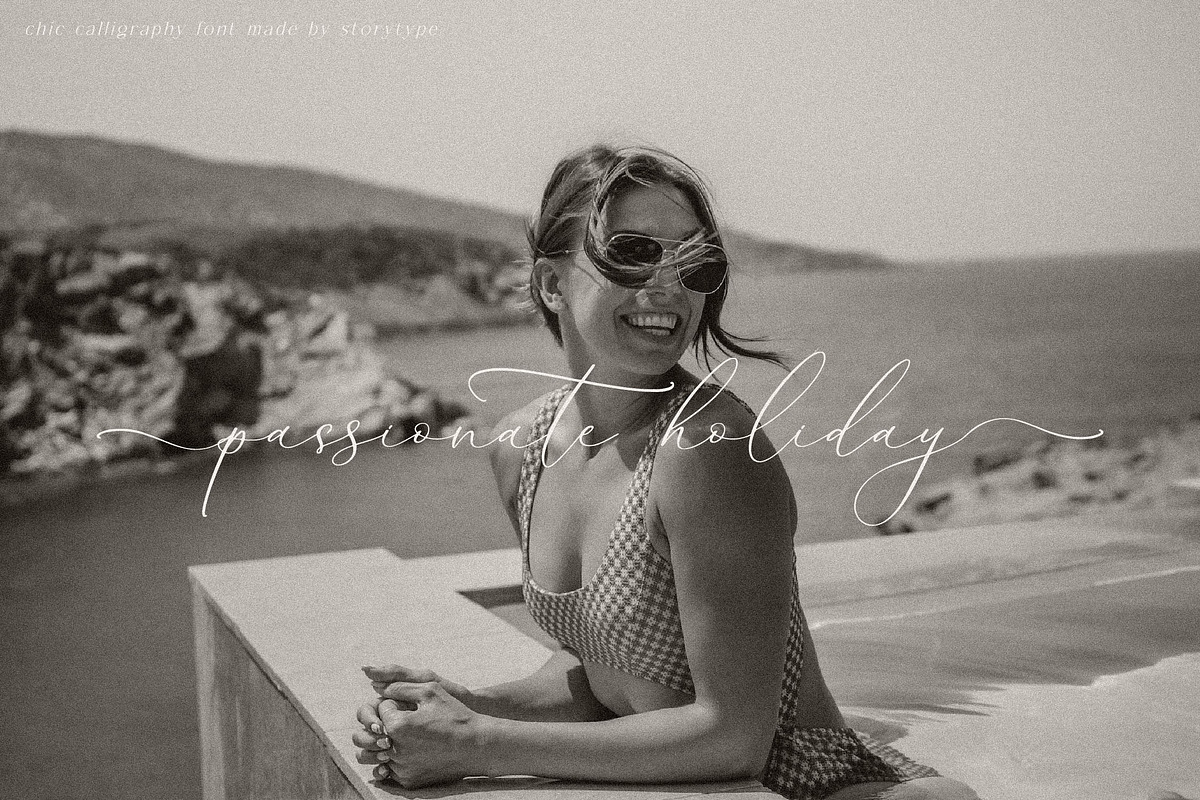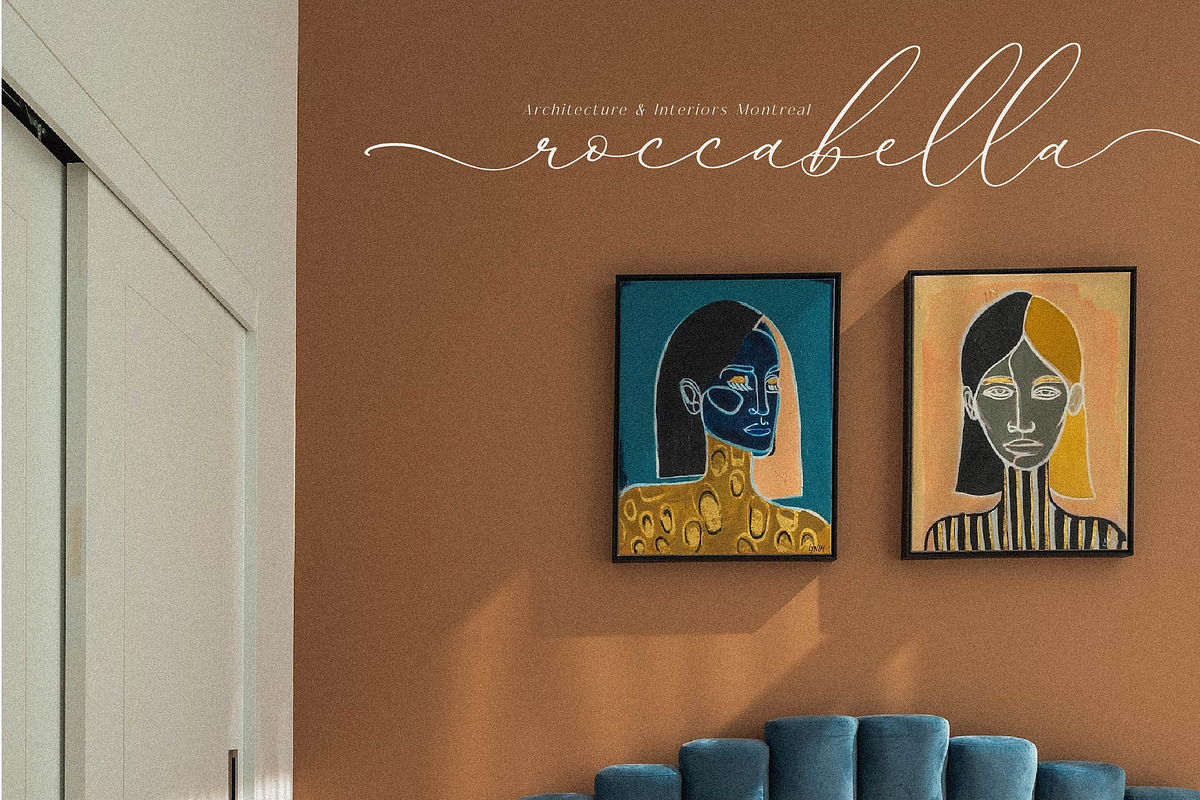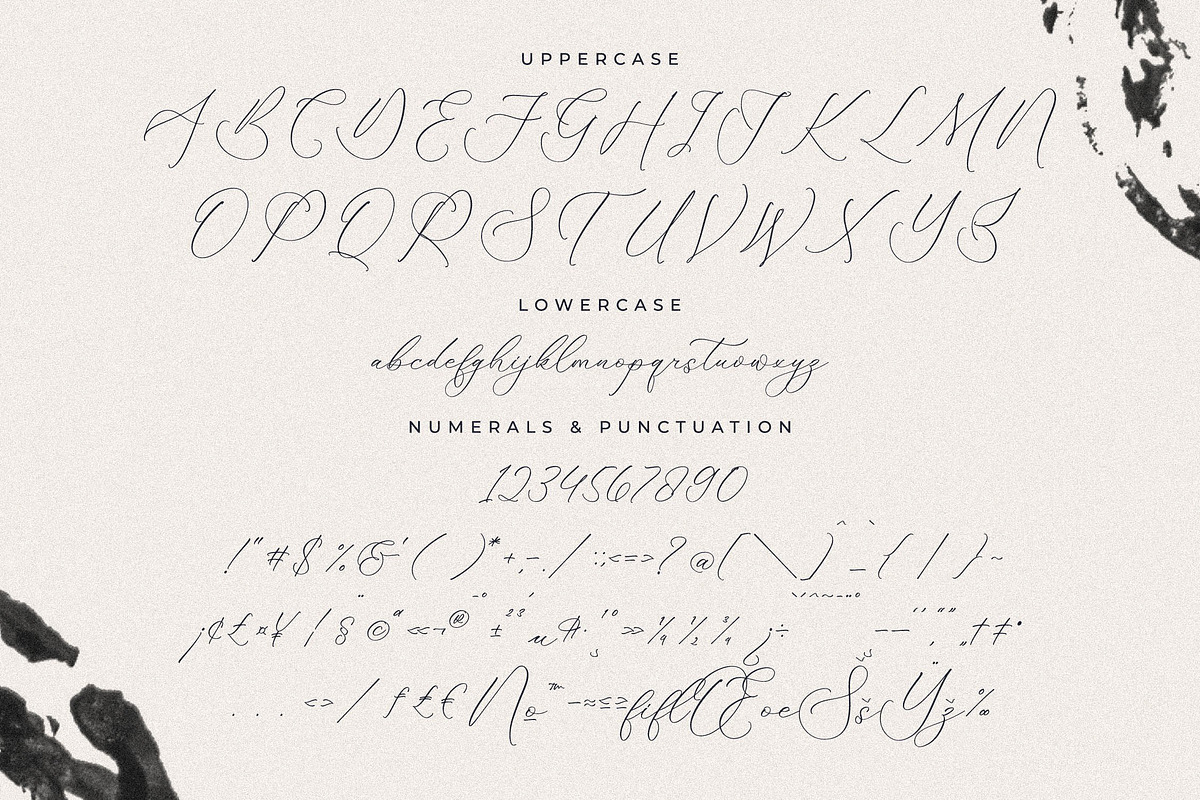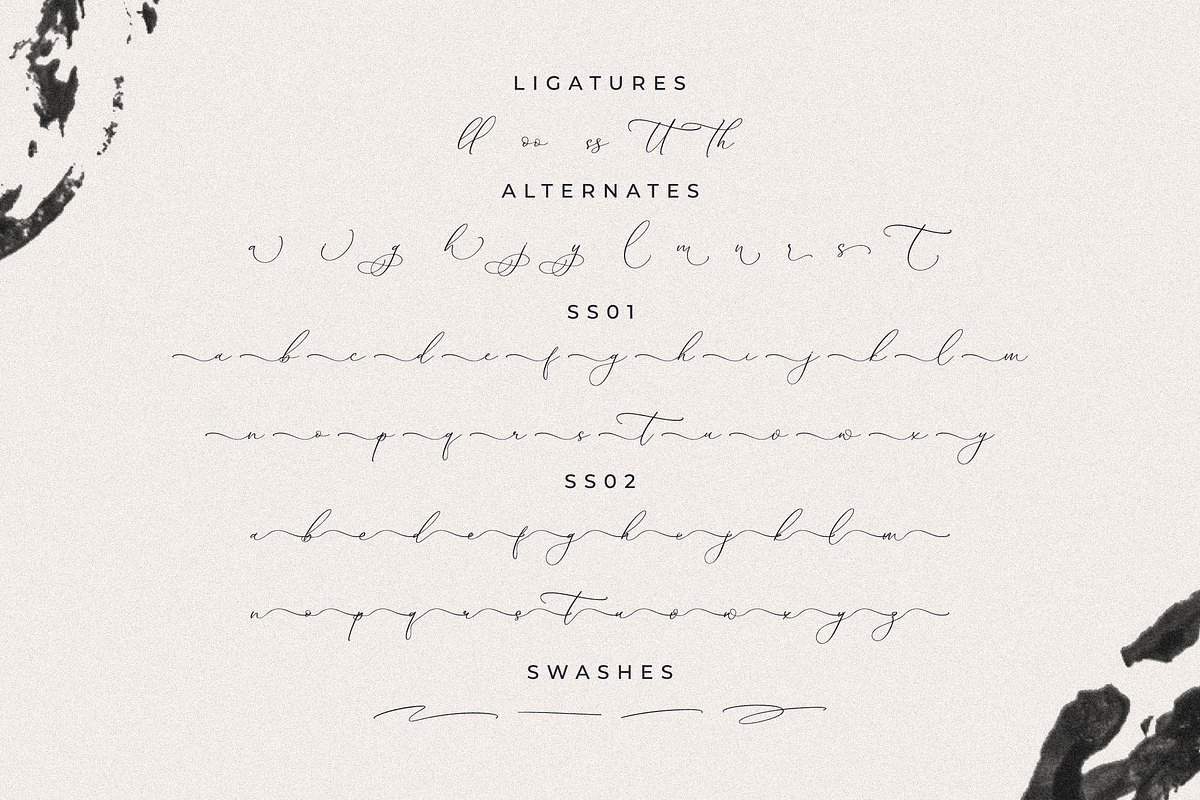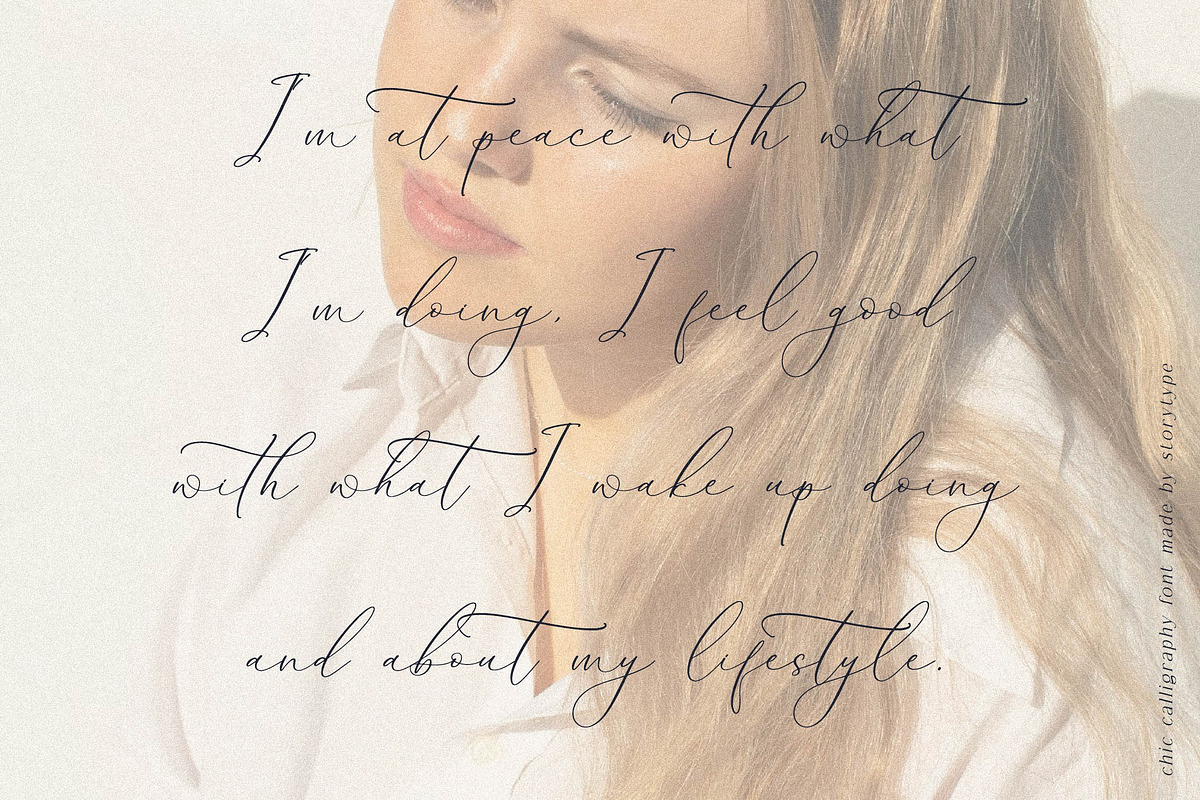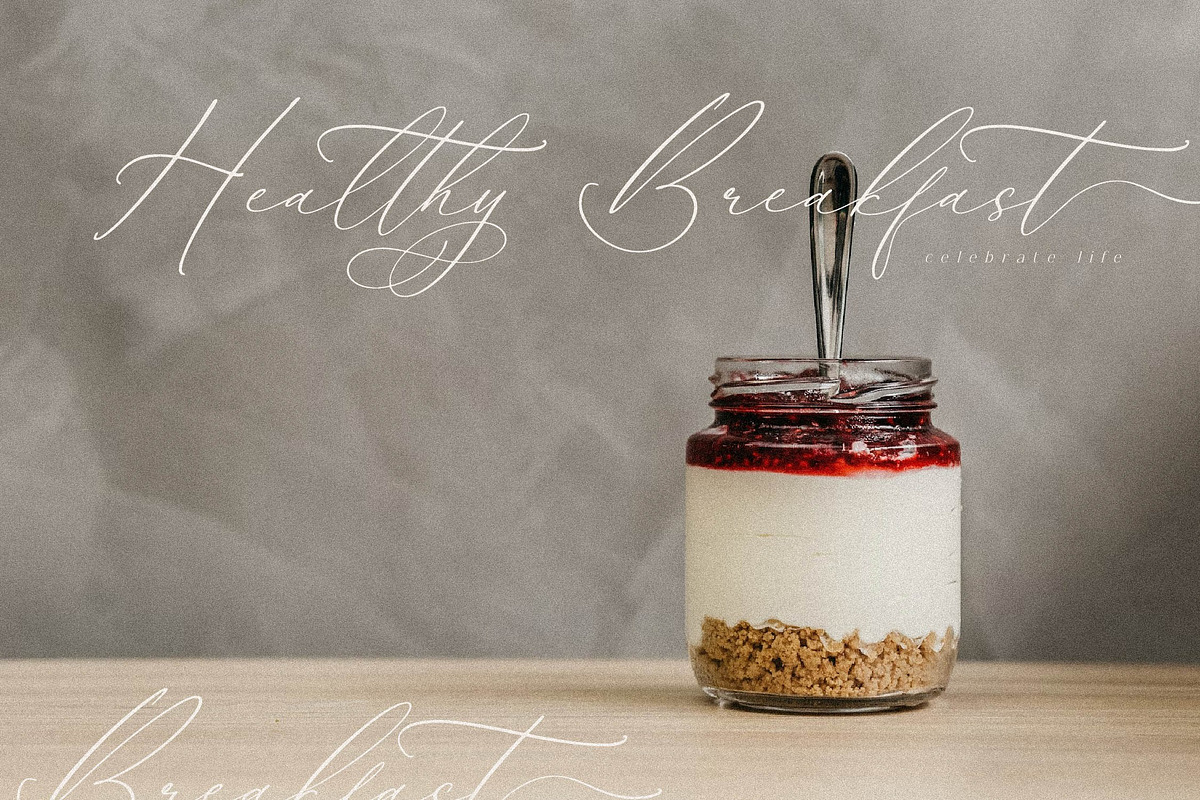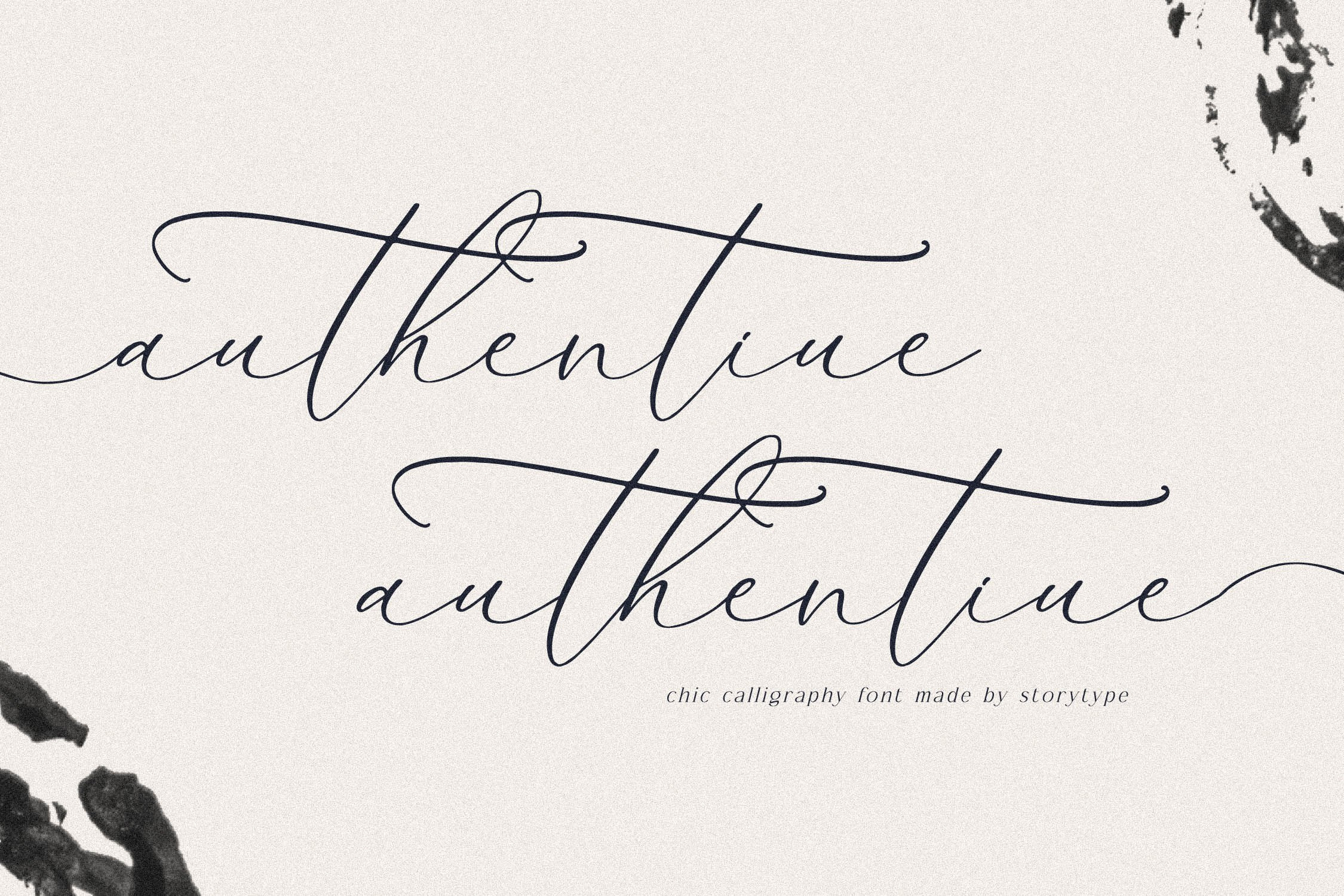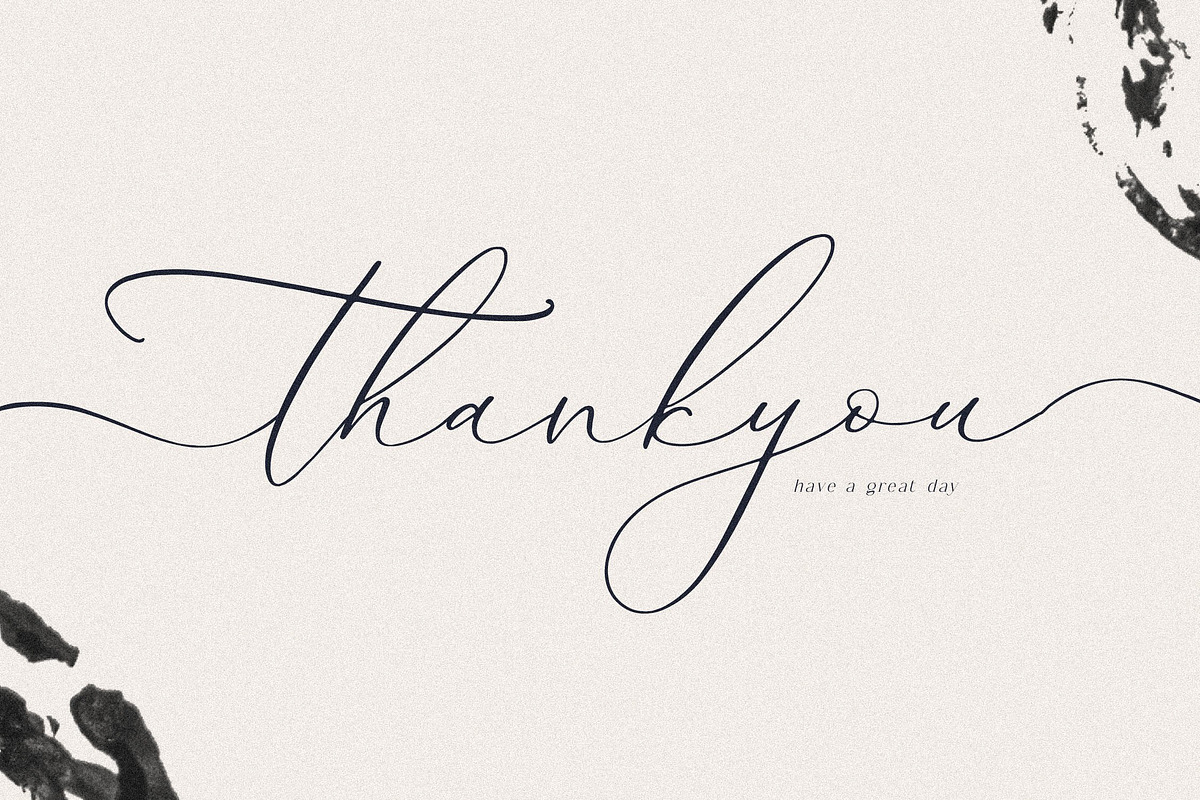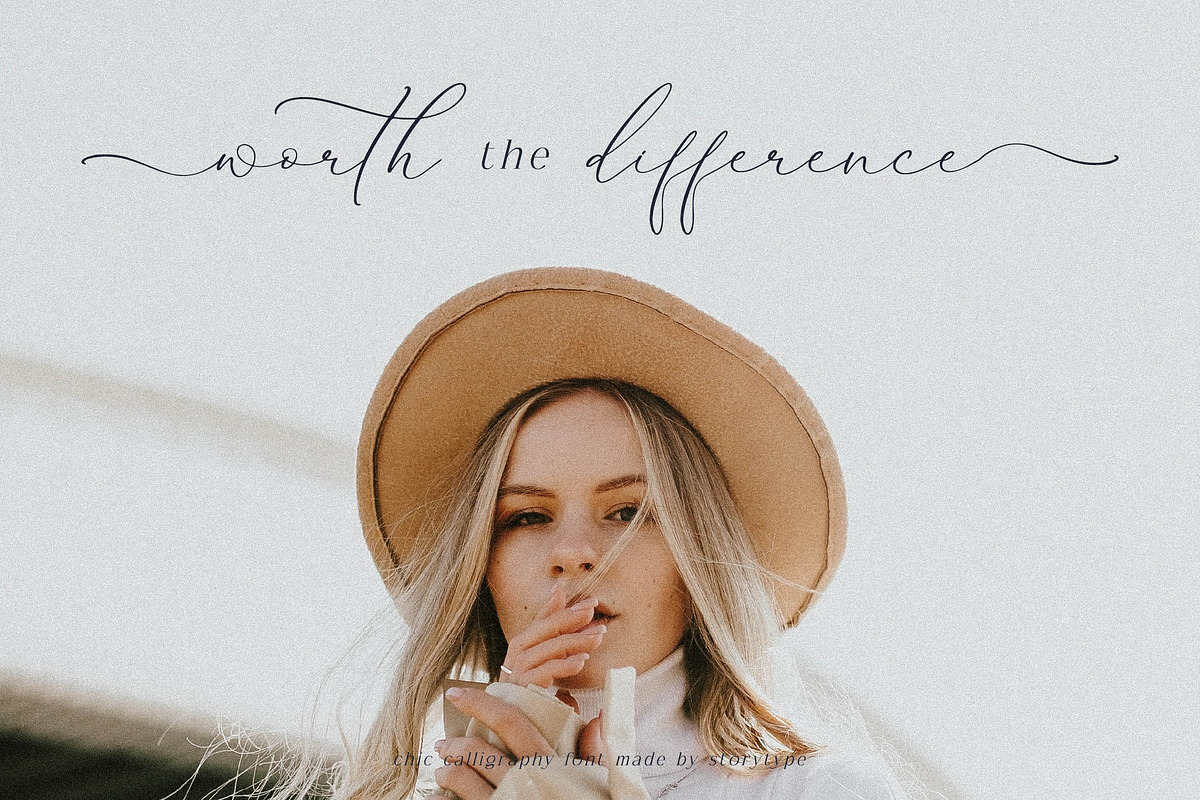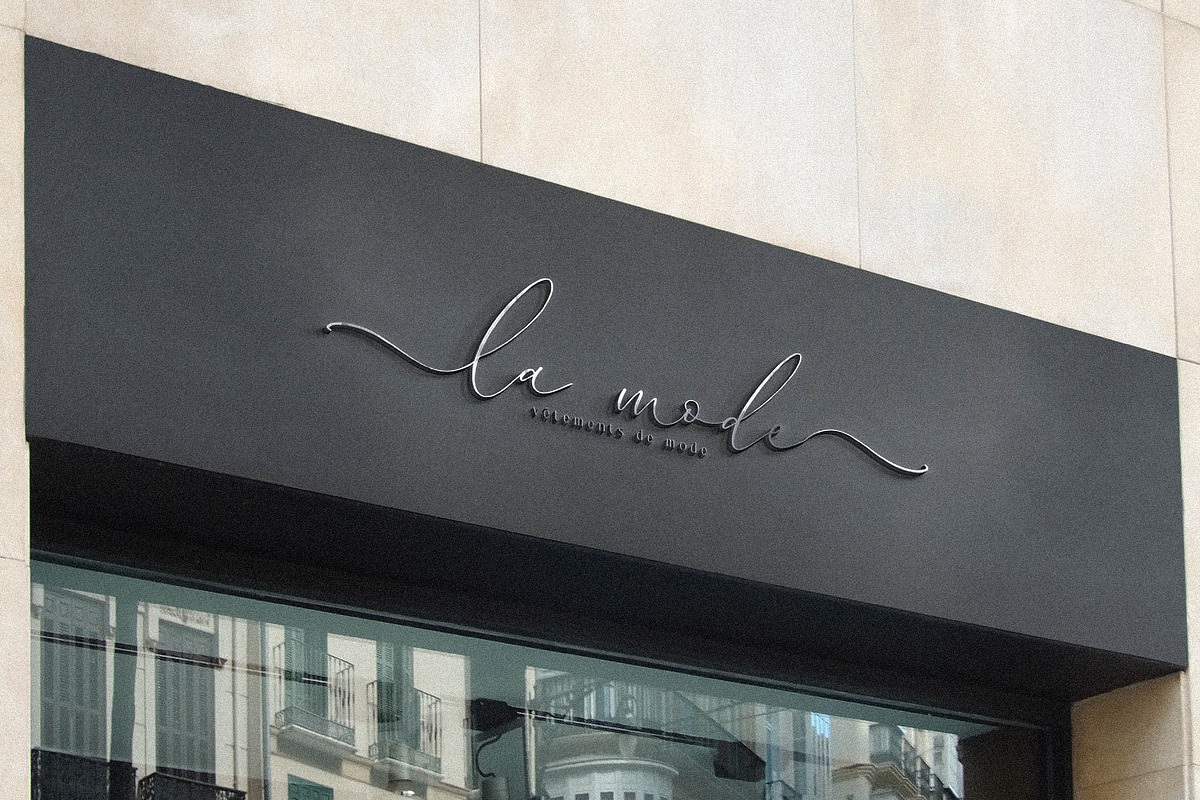
Authentiue Chic Calligraphy Font
Proudly present Authentiue - Luxury Script , created by Storytype, A luxury script that has own unique style & modern look. This typeface is perfect for an elegant & luxury logo, book or movie title design, fashion brand, magazine, clothes, lettering, quotes, and so much more.